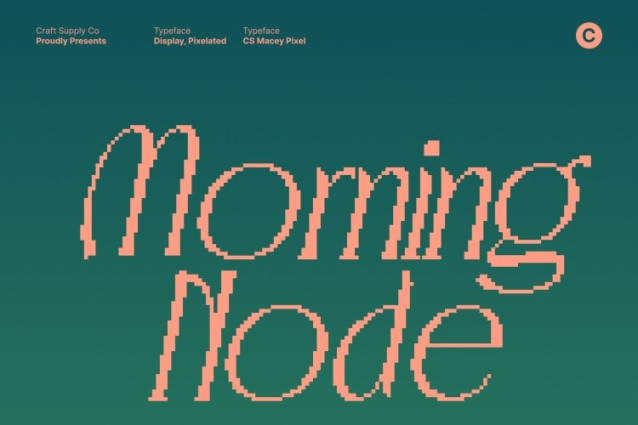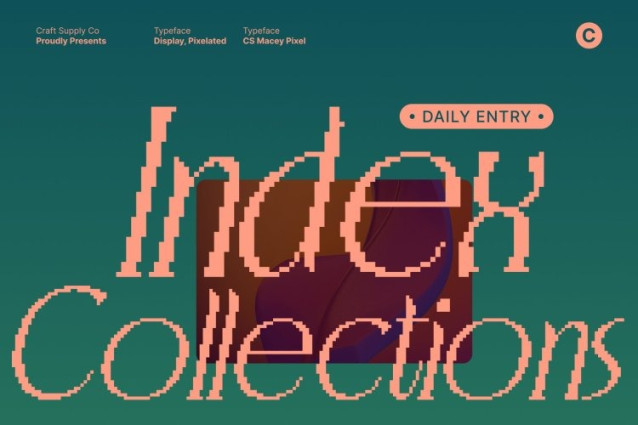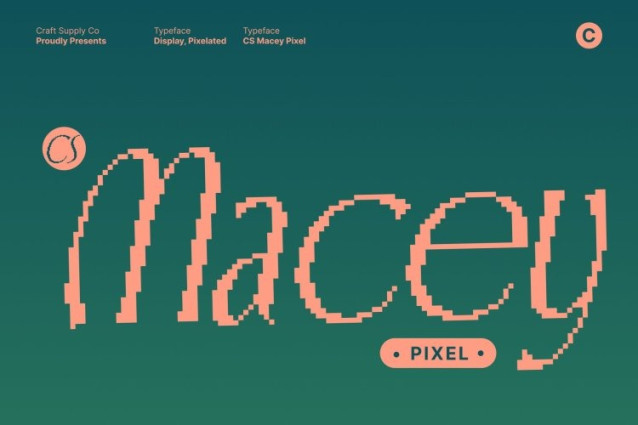
CS Macey Pixel Font This is a modern Art Nouveau-inspired display font that blends smooth, organic lines with subtle pixel detailing. Its graceful curves and flowing letterforms exude elegance and sophistication, while the digital accents add a contemporary edge. The result is a font that feels artistic, stylish, and perfectly suited for premium design applications.
Elegant Curves with Seamless Pixel Flow
Each character maintains soft, natural curves enhanced by carefully integrated pixel structure. This creates a harmonious rhythm that preserves the font’s Art Nouveau beauty while introducing a modern, digital-friendly aesthetic. The flowing forms feel expressive, balanced, and visually captivating.
Artistic Sophistication Meets Contemporary Precision
This font combines decorative elegance with clean execution, delivering a refined Art Nouveau style reinterpreted for today’s design needs. The fusion of organic movement and pixel precision makes it ideal for luxurious and creative applications, giving typography a polished yet artistic presence.
Perfect for Editorials, Luxury Branding, and Fashion
Designed for high-impact, premium use, this font shines in editorials, fashion campaigns, luxury branding, packaging, and sophisticated visual identities. Its elegant display style enhances headlines, logos, and key visuals, adding both artistic flair and contemporary digital refinement to every project